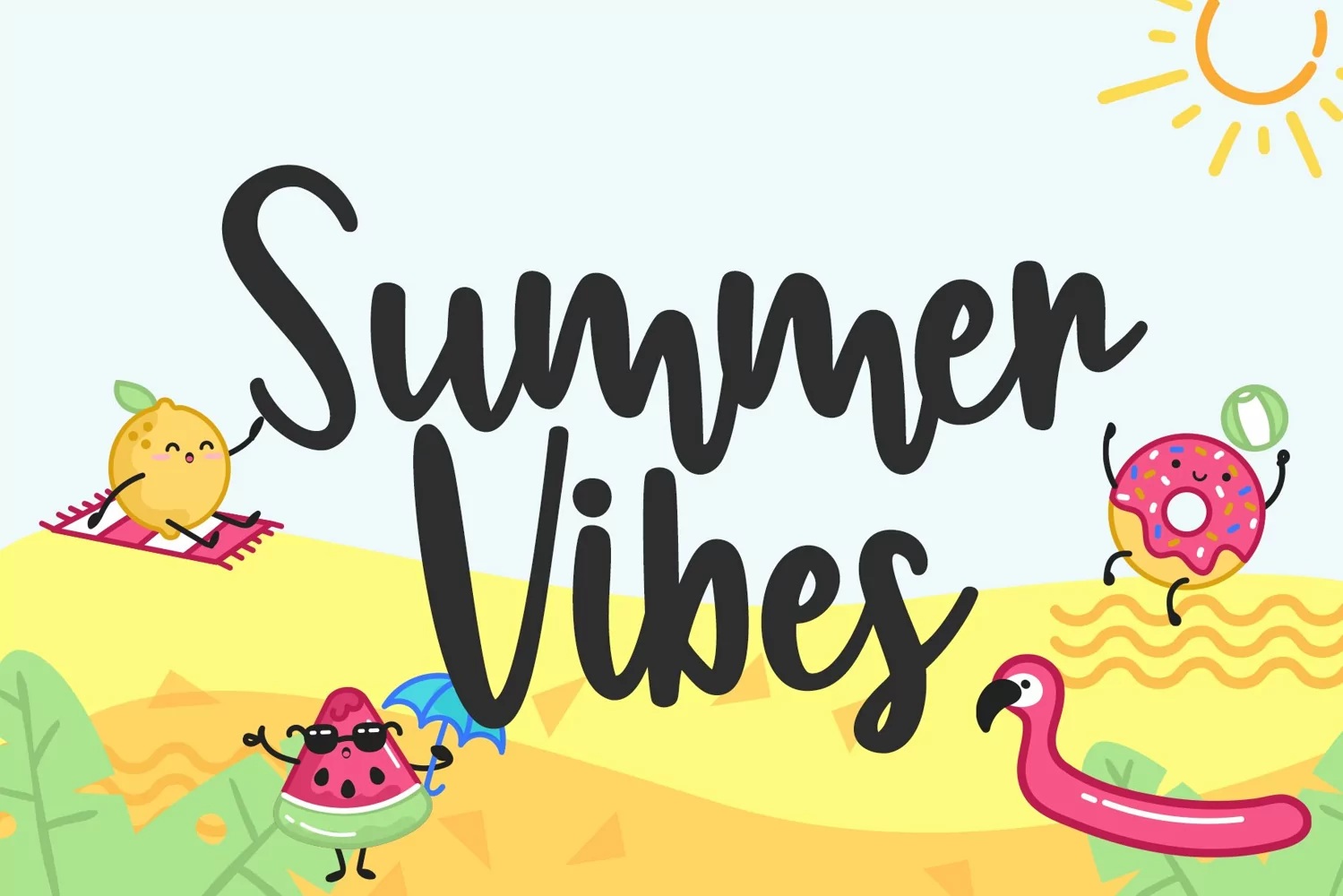
Bark Spears - Handwritten script font
Mom Crafts is a quirky and laid-back handwritten font. Whatever the topic, this font will be a wonderful asset to your font library, as it has the potential to enhance any creation.
- Ligature Character